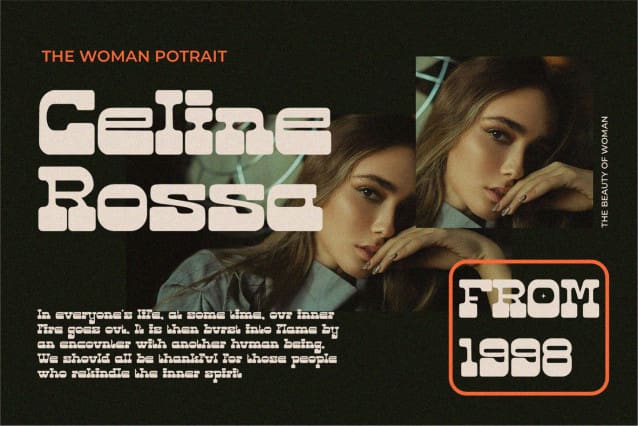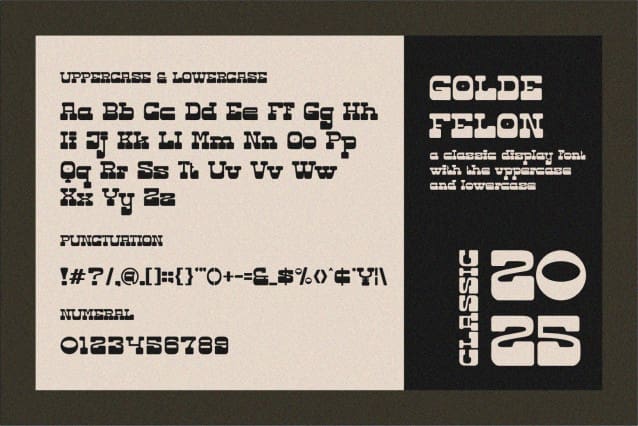
Golde Felon Font
Golde Felon New Unique Display Font is a modern, trendy, bouncy and cute display font. It has a unique character with wood theme. It is perfect to be combined with invitation card designs, company logos, movie titles, movie names, business cards, book titles, brand names and various other designs.